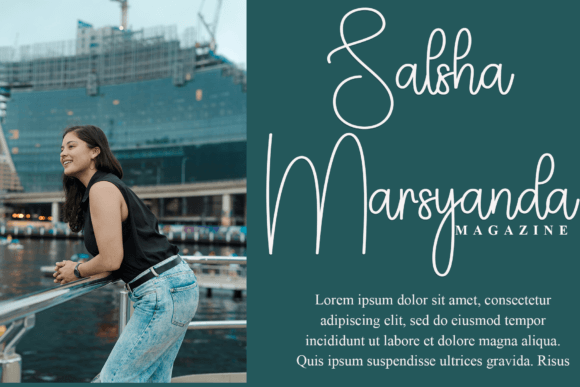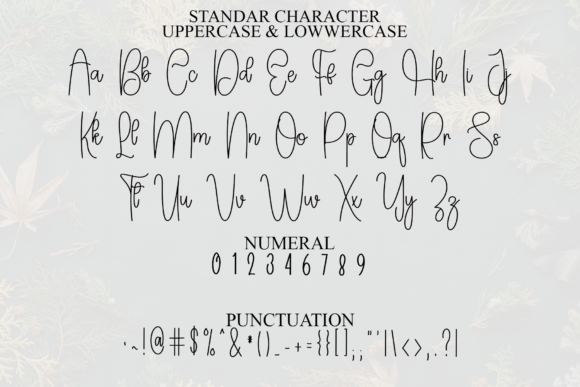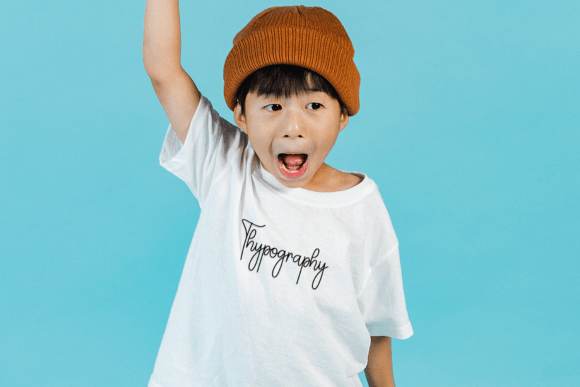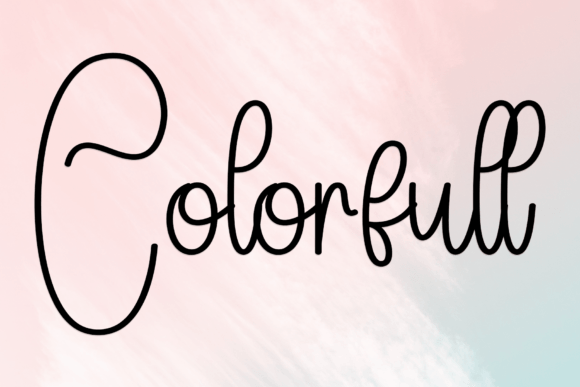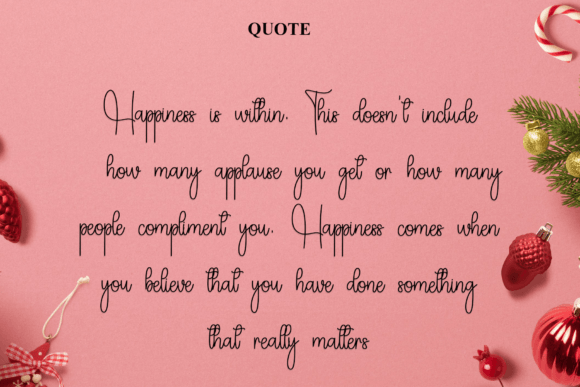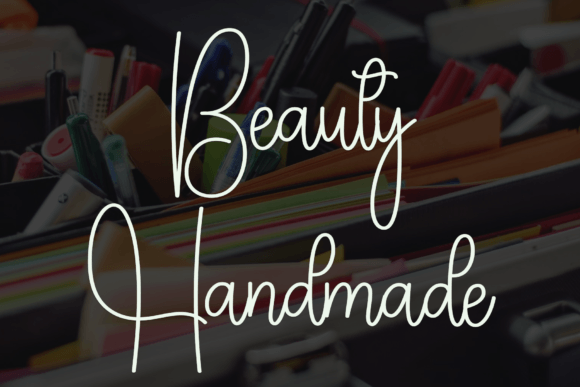
The Perfect Match for Your Creative Vision
Have you ever stared at a blank canvas, sketchbook, or computer screen, waiting for inspiration to strike? It’s that moment when the perfect font can make all the difference. For designers, finding the right font can be a game-changer, elevating a project from good to great. This is where the Ashley Handmade Font comes in – a delicate, elegant, and timeless font that’s sure to make your creative ideas shine.
The Ashley Handmade Font is designed to be versatile and adaptable, making it a valuable addition to any designer’s toolkit. With its beautiful and well-balanced characters, it’s perfect for a wide range of projects, from wedding invitations to branding materials. And with its PUA coding, accessing all the amazing glyphs and ligatures is a breeze, giving you even more creative possibilities.
Ashley Handmade Font Key Features
- Unique Characteristics: Handmade, handwritten, and cursive font with a personal touch; Perfect for crafting, DIY projects, and handmade items
- Character Set: Includes uppercase and lowercase letters, numbers, and punctuation marks
Ashley Handmade Font Review
I recently had the chance to work with Ashley Handmade Font, and I must say it’s a unique and charming addition to any design project. Here are my thoughts:
- The font’s handmade aesthetic is perfect for creating a warm and inviting feel in designs.
- The font is highly customizable, with a wide range of font styles and sizes available.
- The font’s uniqueness sets it apart from more common fonts, making it a great choice for designers looking to add some personality to their work.
- The font may not be suitable for designs that require a more formal or professional tone.
- The font’s handmade aesthetic can sometimes make it difficult to read, particularly in smaller sizes or at a distance.
Ashley Handmade Font is a great choice for designers who want to add a touch of personality to their work. While it may have some limitations, the font’s unique aesthetic and high level of customizability make it a valuable addition to any design project.
The Ashley Handmade Font is perfect for:
- Personalized gift tags and cards
For the best results, use the font in conjunction with distressed textures and vintage design elements to create a unique and handmade look.